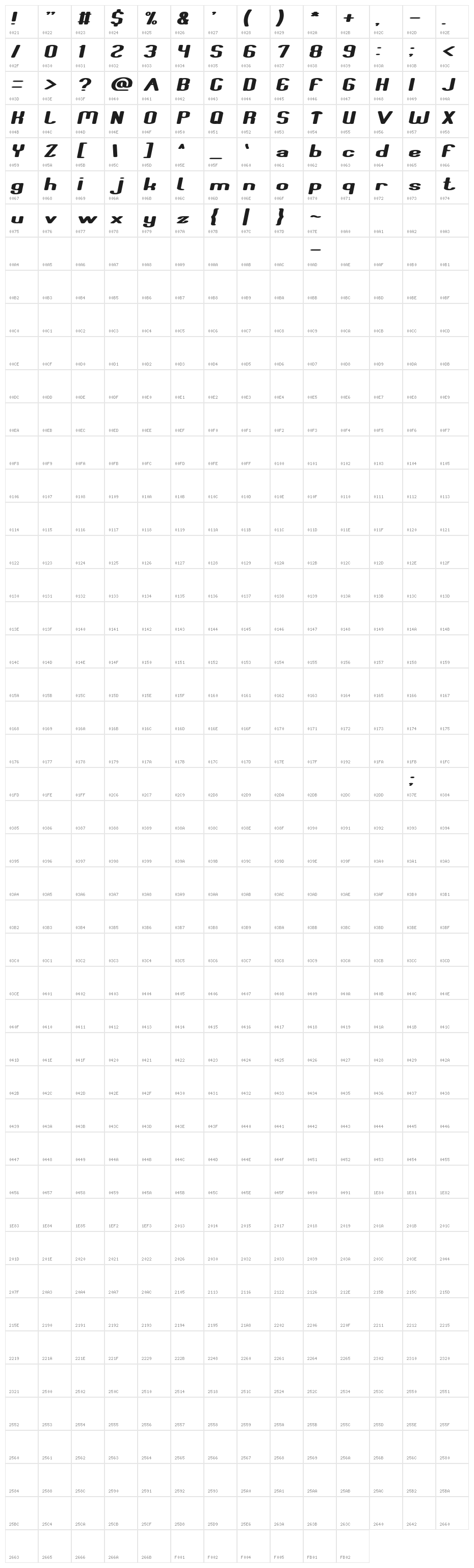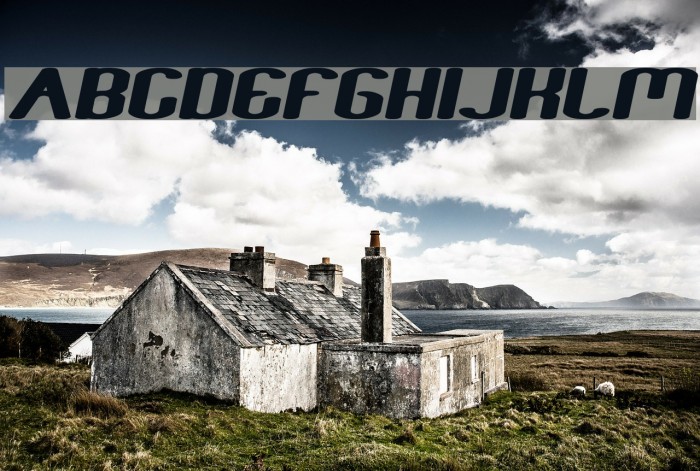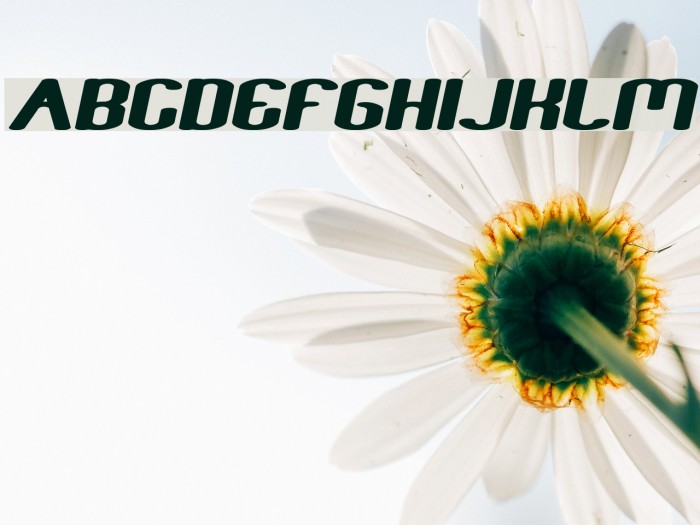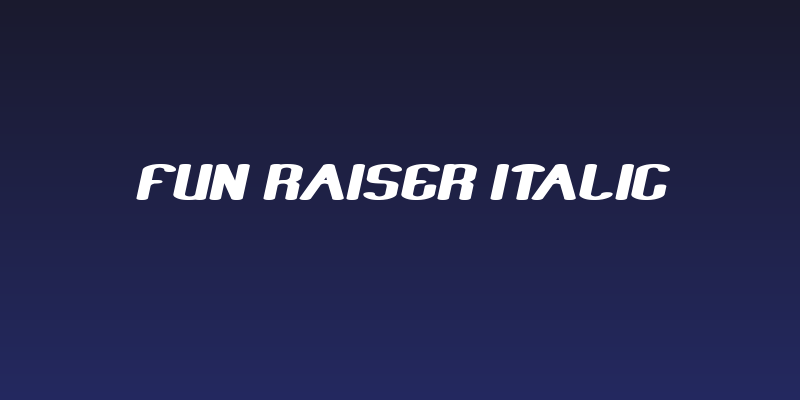
Fun Raiser Italic Font
Fun Raiser Italic Description
This font features a playful and energetic style with a distinct italic slant, giving it a dynamic and forward-moving appearance. The characters are bold and rounded, with a smooth flow that adds a sense of movement and fun. The uppercase and lowercase letters maintain a consistent style, with slightly exaggerated curves and a uniform stroke width that enhances readability. The numerals and special characters are designed to match the lively aesthetic, making them suitable for a variety of creative applications. The overall design is cohesive and visually appealing, making it a great choice for projects that require a touch of whimsy and personality.
| Overall Style | Playful, Energetic |
| Proposed Projects | Ideal for children's books, playful branding, event posters, and creative social media graphics. |